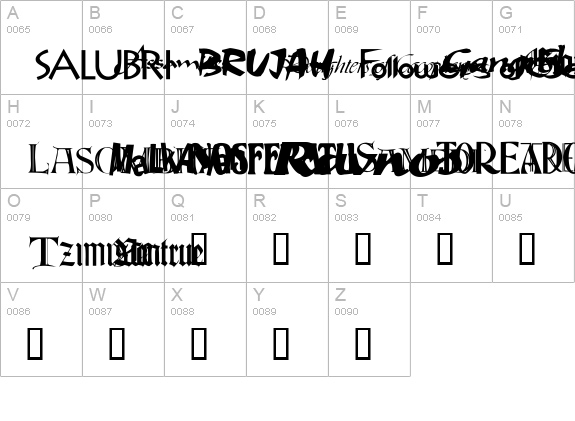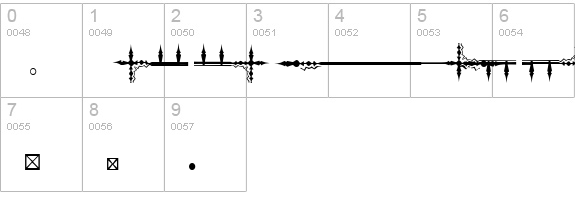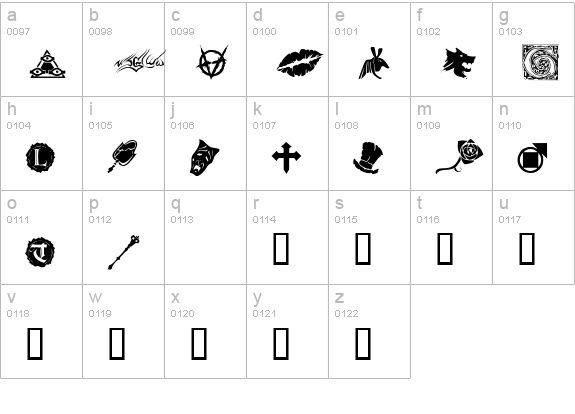
WWVampire Dingbats Font Details
Introducing WWVampire Dingbats font, a mesmerizing and enchanting display of vampire-themed symbols and icons. This unique typeface is perfect for adding a touch of gothic elegance to your designs, whether it's for Halloween invitations, dark-themed websites, or even vampire-inspired merchandise. With its intricate and carefully crafted details, WWVampire Dingbats font captures the essence of these mythical creatures, bringing them to life in the form of beautifully designed dingbats. From menacing fangs and blood-filled chalices to haunting bats and bewitching moon symbols, this font offers a wide range of elements that will surely captivate your audience. But what makes WWVampire Dingbats font even more alluring is the fact that it is completely free. Yes, you heard it right! This stunning font is freely available to download at FontsMarket.com, allowing you to unleash your creativity without any limitations. Whether you're a graphic designer, a party planner, or simply someone who appreciates the dark beauty of vampires, WWVampire Dingbats font is the perfect addition to your font collection. So, go ahead and immerse yourself in the world of vampires with WWVampire Dingbats font. Let its hauntingly beautiful symbols breathe life into your next project, making it an unforgettable and mesmerizing experience. Download this captivating font for free at FontsMarket.com and start creating your own vampire-inspired masterpieces today. Embrace the darkness and let your imagination run wild with WWVampire Dingbats font.